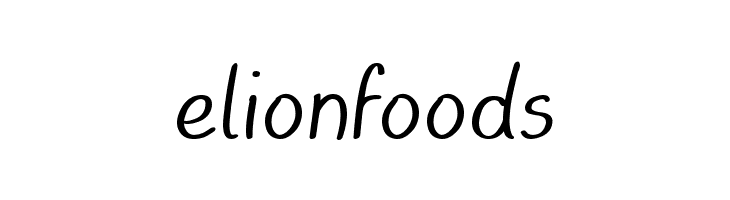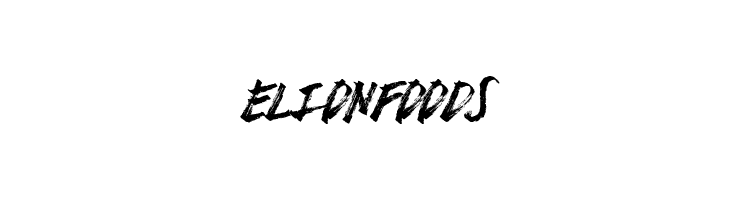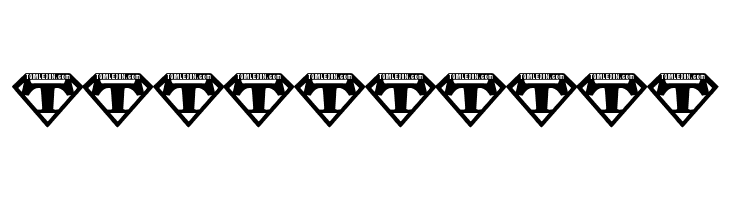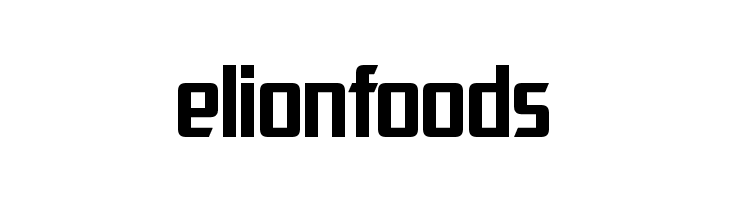
( Fonts by Vít Čondák )
A playful, casual handwritten font with smooth, flowing lines.
A bold, brush script font with a textured, hand-painted appearance.
( Fonts by Dave Griffiths )
A bold, expressive handwritten font with fluid strokes and artistic flair.
( Fonts by Thomas Ledin - tomledin.com )
A bold, textured, three-dimensional font with a playful, hand-drawn style.
( www.tattoowoo.com )
An elegant and flowing script font with intricate loops and swashes.
A bold, italic font with sharp angles and a modern, dynamic style.
A bold, geometric typeface with strong, angular lines and a modern aesthetic.
A bold, geometric font with a futuristic and modern aesthetic.
A bold, italicized font with a modern, dynamic style and tight character spacing.